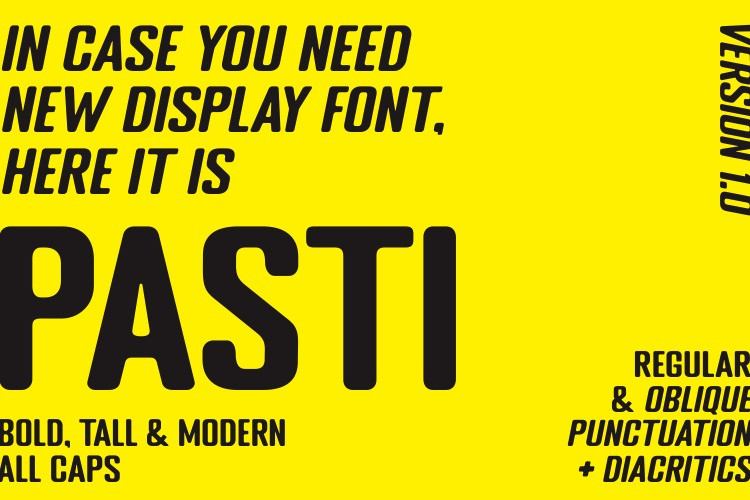
PASTI Display Font
This is a sans serif display typeface manufactured by HolyJollie. PASTI designed for elegant and outstanding purposes for your project. This font is perfect for logotype, advertising poster, title, headline, publishing, text font, and etc.